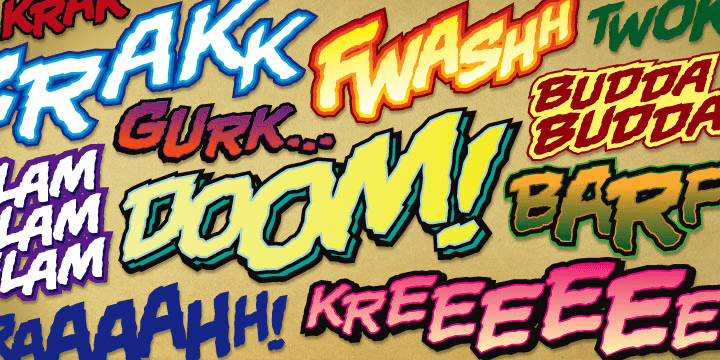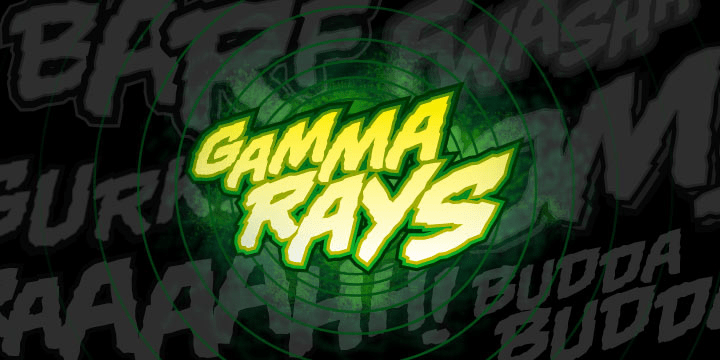
Gamma Rays BB
GAMMA RAYS BB is a comic book sound effects font with an explosive personality and long-lasting after effects. Comes with Regular and Italic and a comprehensive set of European characters.